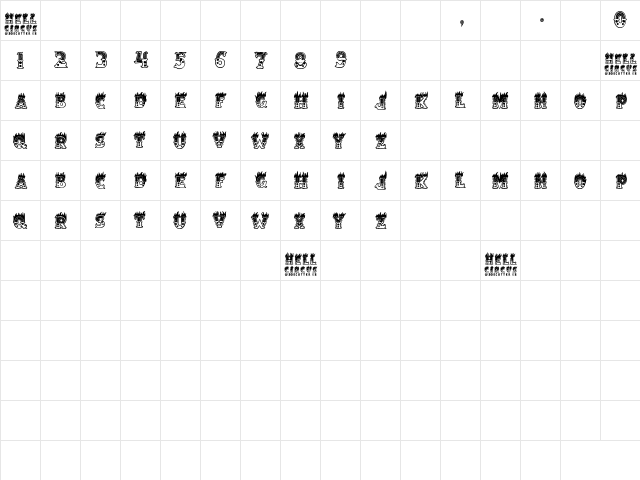
Hell Circus Regular
| Designer | Woodcutter Manero |
Design Context for Hell Circus Typeface
Hell Circus is a composed and adaptable typeface that performs quietly and consistently across a wide range of design contexts.